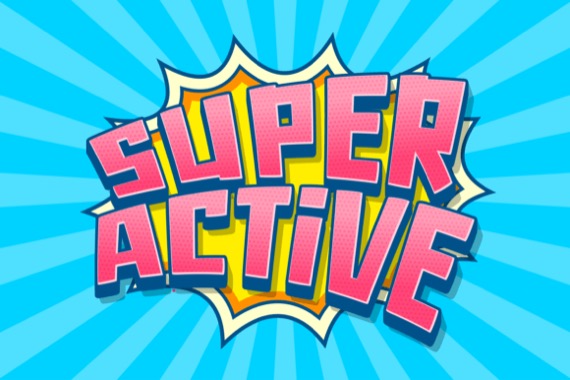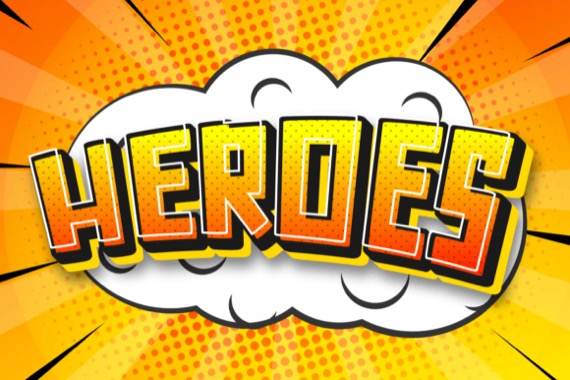
Super Active is a modern and stylish display font that was created and shared by Creative Fabrica Fonts with a unique comic style. Bring your creative ideas to life with this captivating font that features thick and eye-catching characters! You can use it for posters, advertising materials, magazine covers, and more.
Super Active Display Font